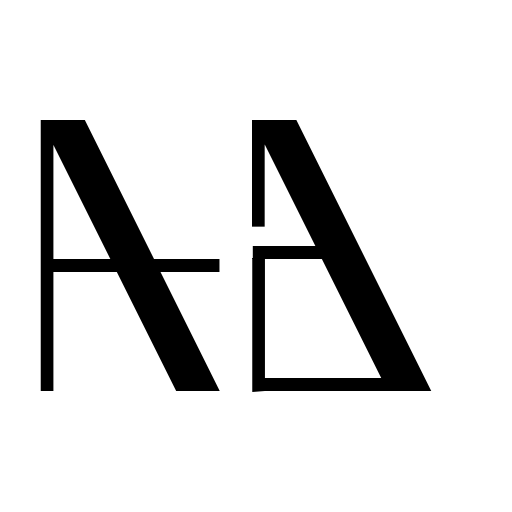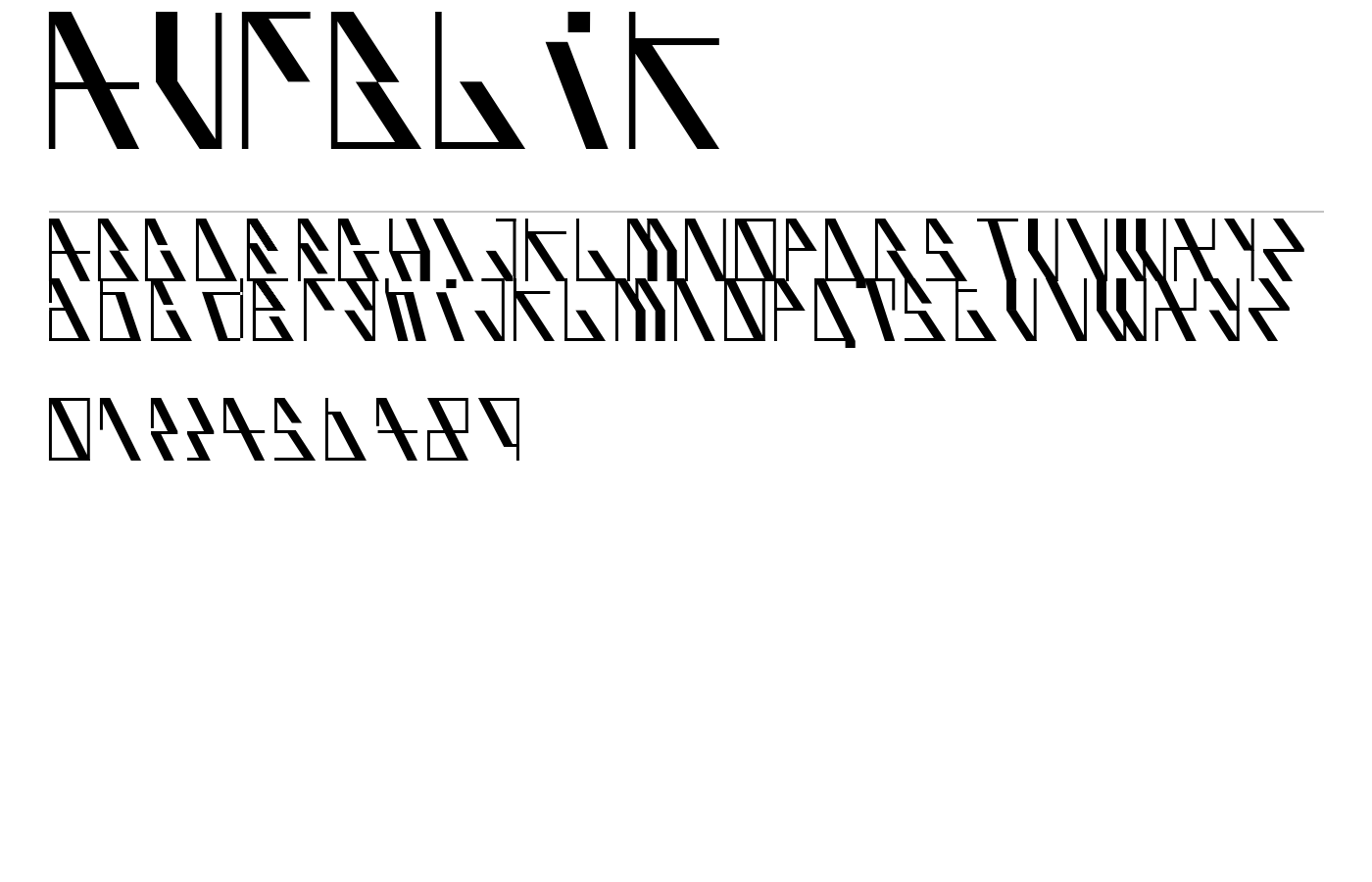
AufBliK is a sharp, geometric sans serif font characterized by its condensed width and high contrast between thick and thin strokes. Its angular letterforms, with distinct diagonal cuts and narrow shapes, give it a modern and futuristic feel, making it ideal for bold headlines, branding, and creative design projects that seek a cutting-edge and avant-garde look.
AufBliK Font
About AufBliK Font